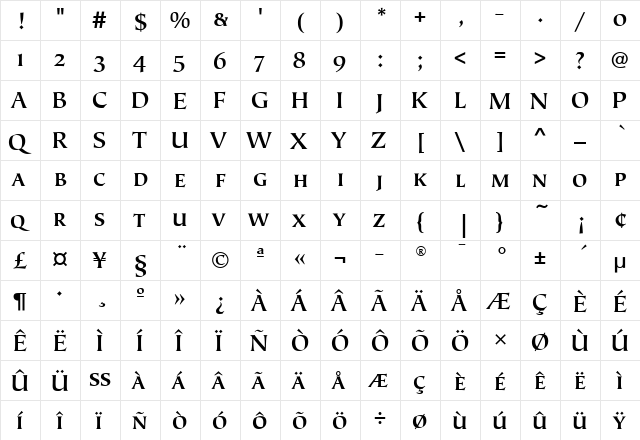
TiepoloSCITC Bold Font Preview
TiepoloSCITC Bold
TiepoloSCITC Bold Font Details
| Foundry | E+F Designstudios. ITC Tiepolo is a registered trademark of International Typeface Corporation |
Design Context for TiepoloSCITC Typeface
TiepoloSCITC offers clean, dependable letterforms without strong stylistic allegiance, making it a practical choice for designers who need flexibility. The heavy weight commands attention and anchors typographic hierarchies.